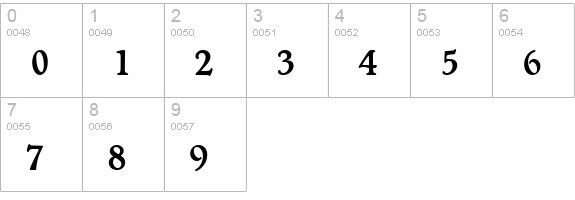
ArtcraftURWTBol Font Details
ArtcraftURWTBol is a stunning and versatile font that exudes elegance and sophistication. With its bold and unique design, this font is perfect for adding a touch of style to any project. Whether you're creating a logo, designing a poster, or crafting a website, ArtcraftURWTBol is sure to make a statement. What sets this font apart is not just its visually appealing aesthetics, but also its accessibility. ArtcraftURWTBol is freely available to download at FontsMarket.com, making it a valuable resource for designers, artists, and creatives alike. Embrace the beauty and versatility of ArtcraftURWTBol and take your designs to the next level.